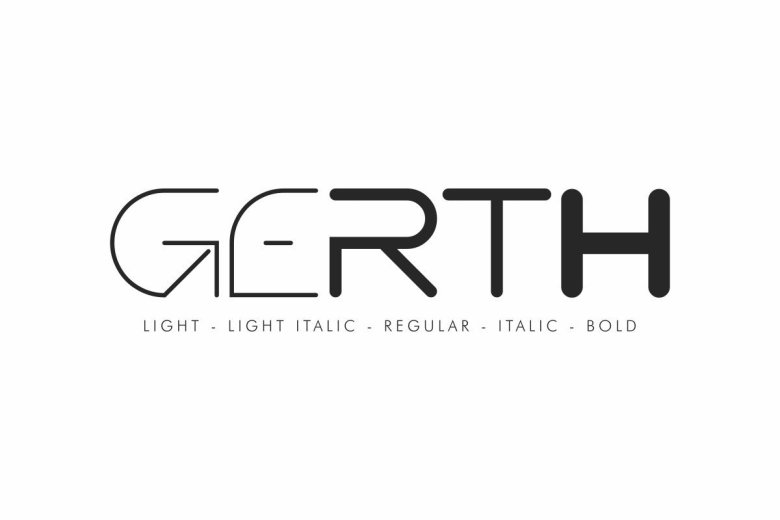
Gerth Sans Serif Typeface
Gerth Sans Typeface is a font duo font family with four different styles. Originally made by NihStudio Font Designers :  Nouval and Suci. Handcrafted here in our Studio , Indonesia. Gerth font will be great for any projects (require extended license) including : branding, logo, stationery, business card, signage, flyer, brochure etc. The Gerth has 5 styles : Regular,light, light italic, italic and Bold